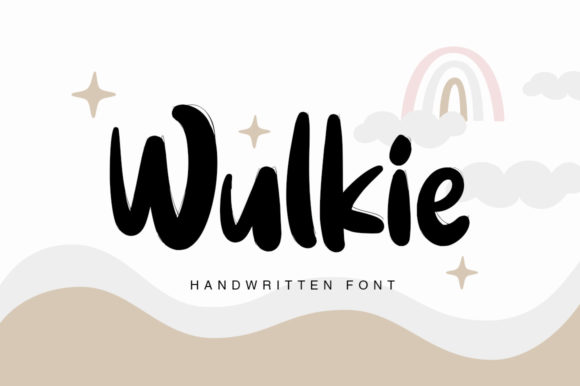
Journey into the realm of visual intrigue with Wulkie Font, a display font that embodies both coolness and casual elegance. This remarkable creation from fargunstudio is not merely a font; it's an artistic gateway to captivating designs that leave an indelible mark.
Wulkie Font is more than just a collection of letters and symbols; it's a canvas for your imagination to run wild. Its unique charm lies in its ability to transform ordinary text into mesmerizing visuals, adding a touch of sophistication and personality to your digital creations.
Unleash your creativity with Wulkie Font and explore a world of endless possibilities. Whether you're crafting social media posts, designing logos, creating eye-catching posters, or embarking on web development projects, this font will elevate your designs to new heights, leaving your audience captivated.
Wulkie Font possesses an innate ability to enhance the visual appeal of any project. Its distinct character adds a touch of intrigue and allure, making it the perfect choice for those seeking to make a bold statement. Embrace the power of this font and let your designs radiate with a captivating charisma that commands attention.
With Wulkie Font as your creative companion, you'll discover a newfound appreciation for the art of typography. Its versatile nature effortlessly complements a myriad of design styles, allowing you to seamlessly integrate it into your projects. From sleek and modern layouts to playful and whimsical themes, Wulkie Font effortlessly adapts, enhancing your designs with a touch of effortless elegance.
Elevate your design arsenal with Wulkie Font and witness the transformation of ordinary text into captivating visual masterpieces. Unlock the gateway to extraordinary designs and embark on a creative journey where your imagination takes center stage. Let Wulkie Font be your guide as you explore the boundless realm of visual communication.